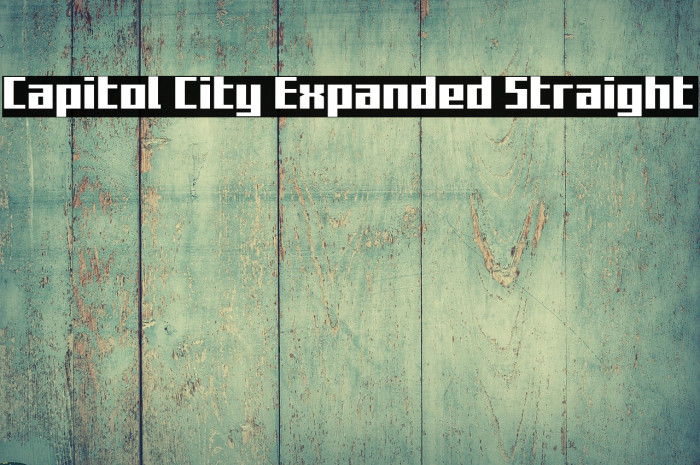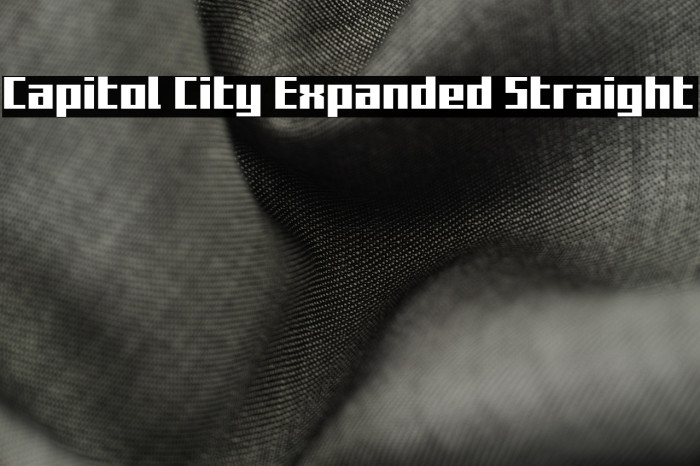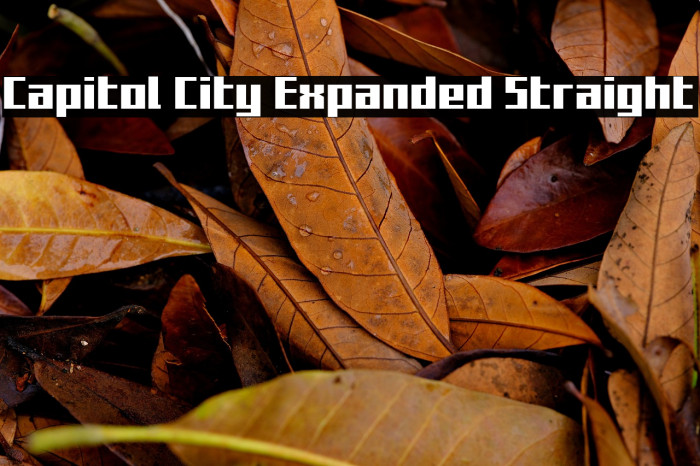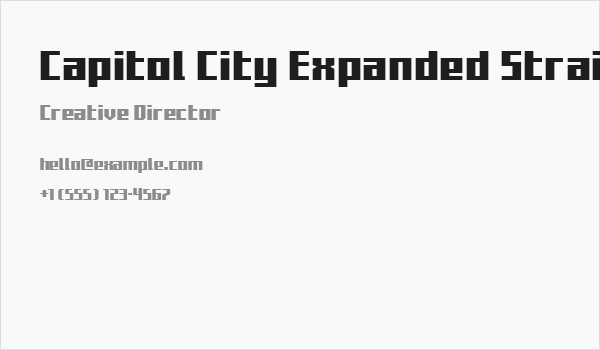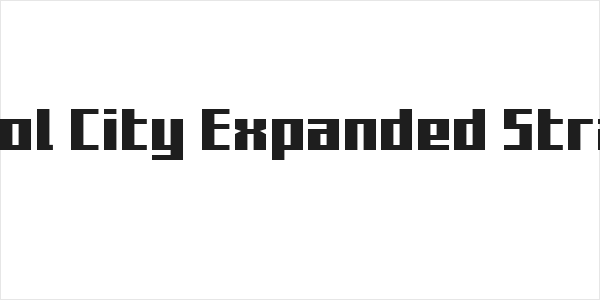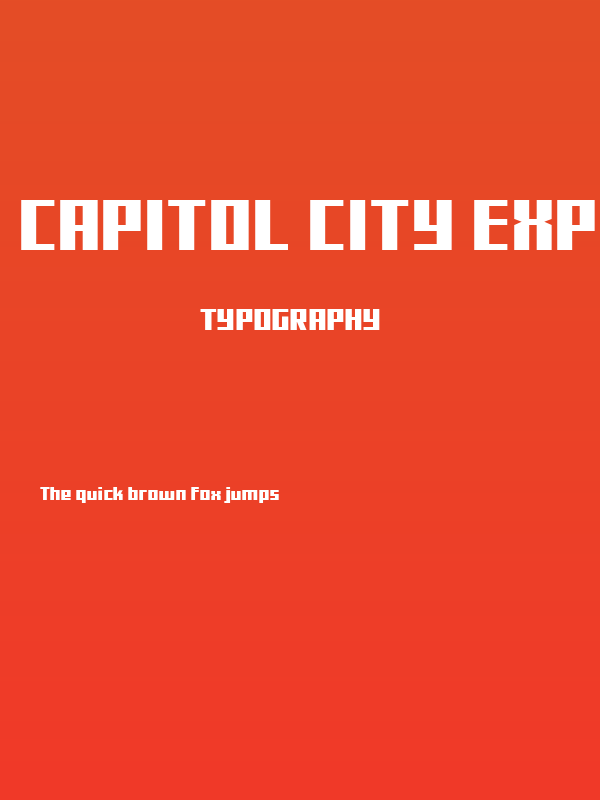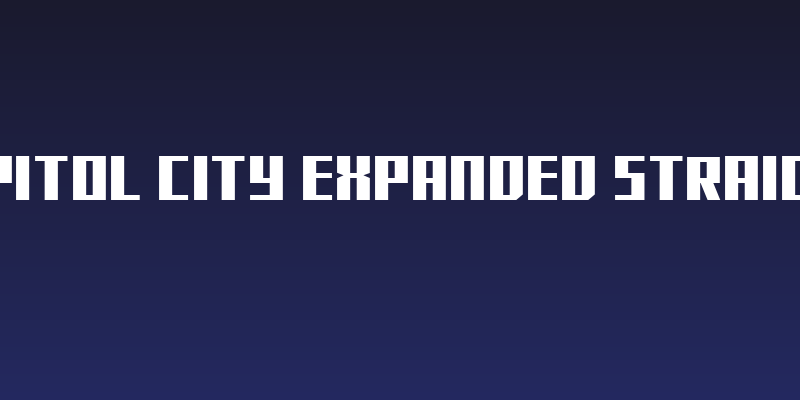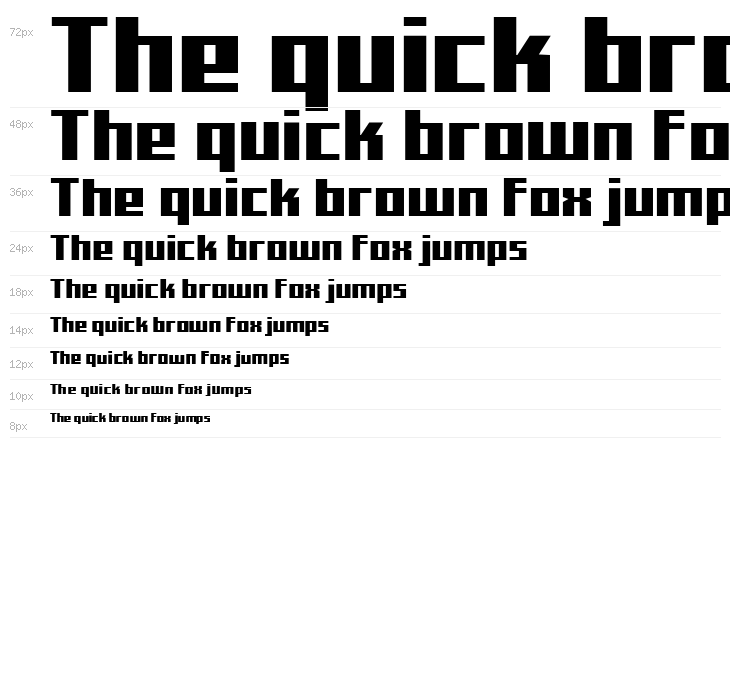
Capitol City Expanded Straight Font
Capitol City Expanded Straight Description
This font features a bold, geometric design with straight, angular lines and a blocky appearance. The characters are uniformly wide, giving a sense of stability and strength. The uppercase and lowercase letters maintain a consistent height, contributing to a cohesive look. The numerals and special characters follow the same design principles, ensuring uniformity across all glyphs. The overall style is modern and industrial, making it suitable for projects that require a strong visual impact.
| Overall Style | Modern, Industrial |
| Proposed Projects | Ideal for branding, posters, headlines, and any design requiring a strong, impactful presence. |